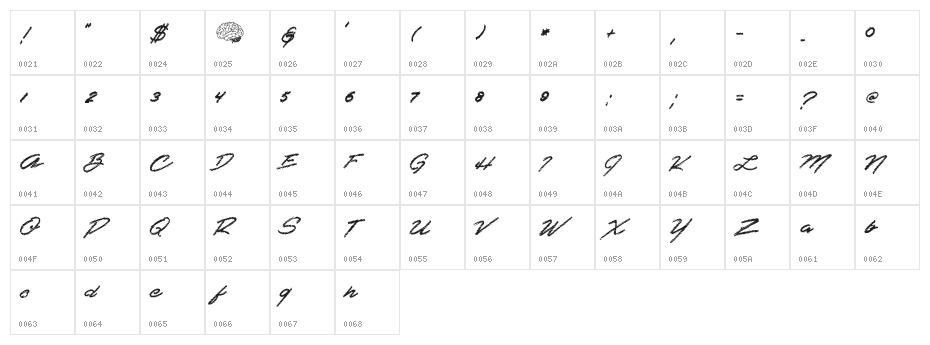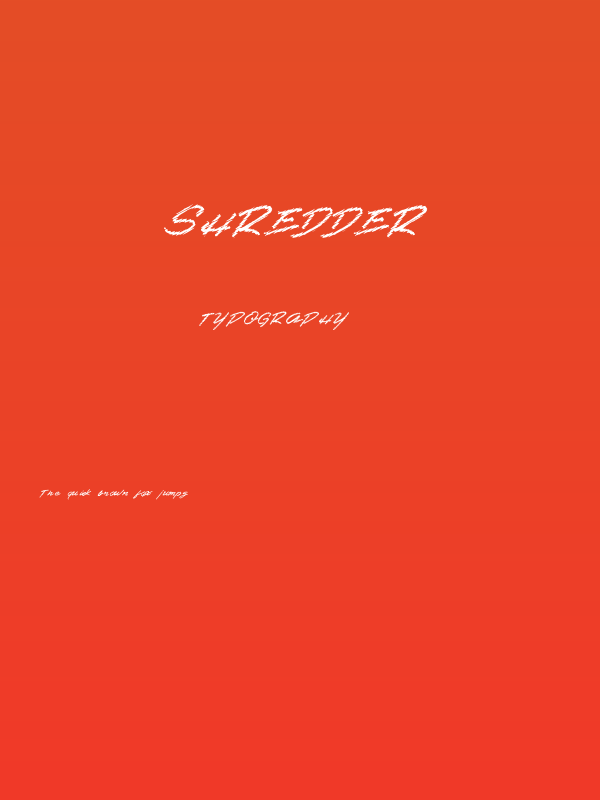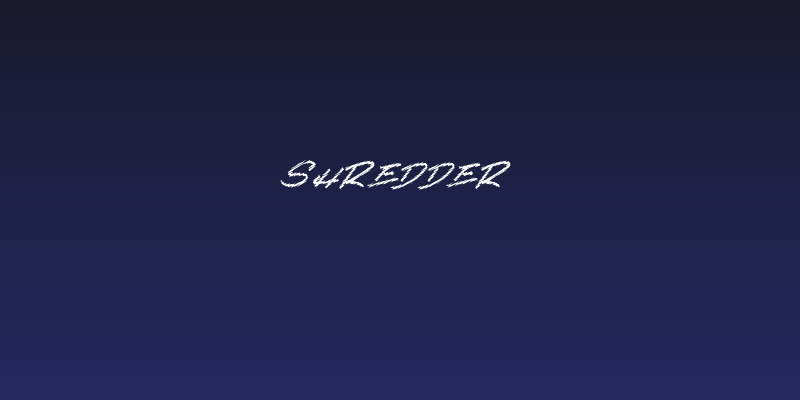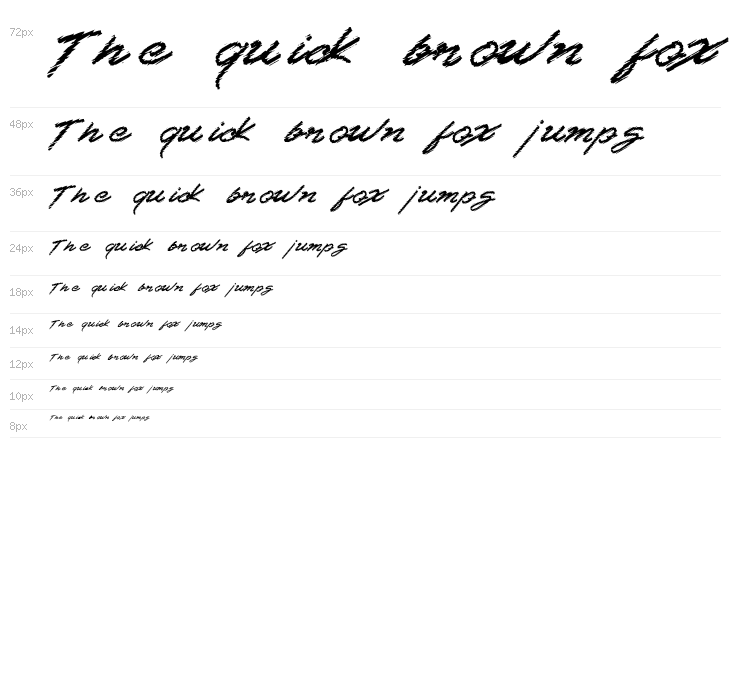
Shredder Font
| श्रेणियाँ | Script |
| समग्र शैली | Decorative |
| उपयोग का मामला | Logos, Headlines, Artistic projects |
| सुझाए गए प्रोजेक्ट | Ideal for edgy branding, artistic posters, album covers, and creative invitations. |